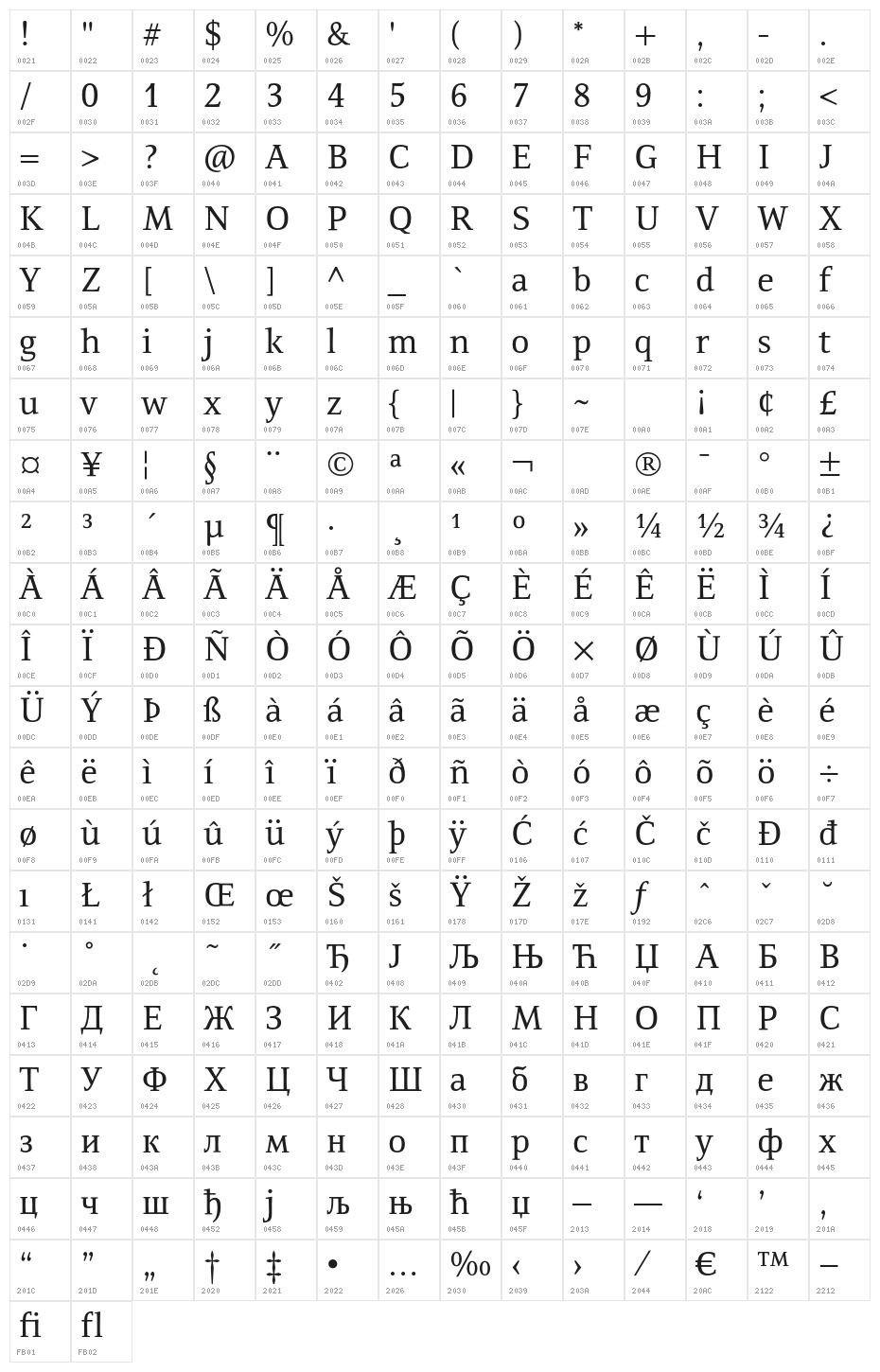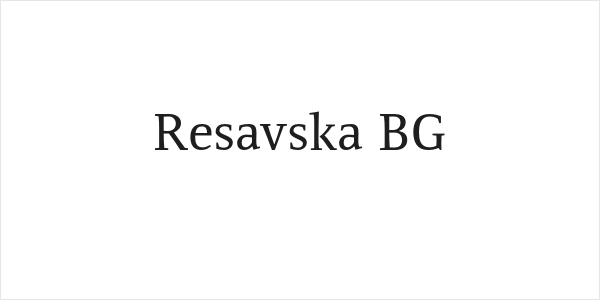
Resavska BG Font
Resavska BG Description
This font exhibits a classic serif style with a modern twist, characterized by its elegant and refined letterforms. The uppercase letters are bold and commanding, while the lowercase letters maintain a balanced and harmonious appearance. The numerals are clear and distinct, ensuring readability. Special characters are well-integrated, complementing the overall aesthetic. The font's design is versatile, suitable for both digital and print media, offering a timeless appeal that can enhance various design projects.
Overall StyleClassic
Proposed ProjectsIdeal for editorial design, book covers, formal invitations, and branding materials.